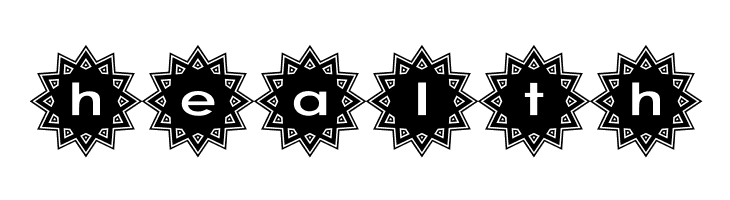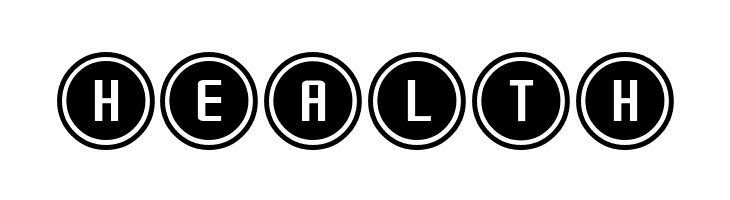
A bold, distressed font with horror-themed elements and rugged textures.
A whimsical font with letters formed by cat illustrations, ideal for decorative use.
A decorative font with characters enclosed in starburst shapes, offering a bold and playful look.
A playful font inspired by domino tiles, featuring letters formed by dot patterns.
A bold, geometric font with characters in circular backgrounds, offering a modern and futuristic look.
A bold, decorative font featuring New York City skyline elements within each character.
A bold, high-contrast serif font with sharp, elegant serifs.